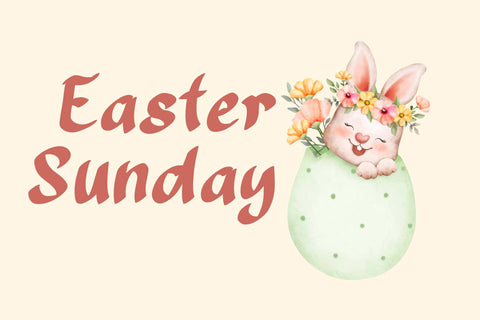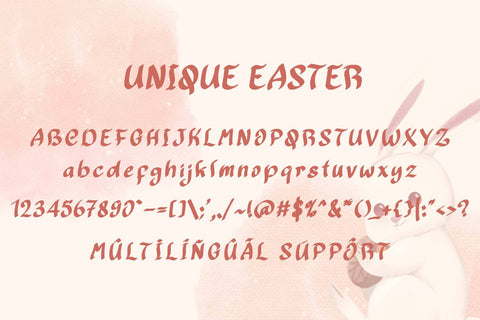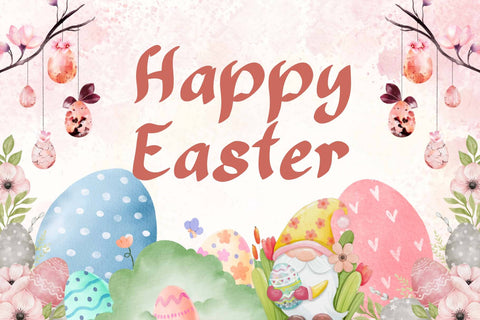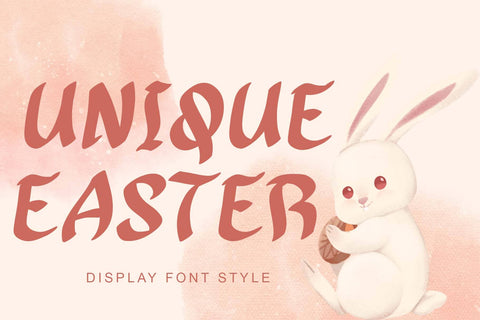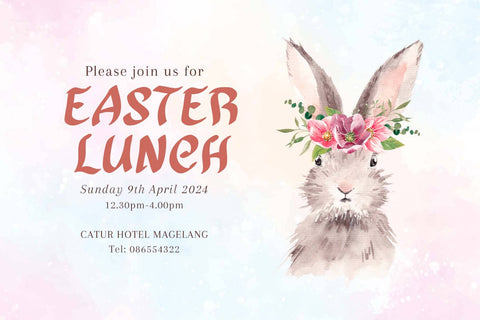
Unique Easter
"Unique Easter" is a unique and elegant display font. Equipped with uppercase letters, lowercase letters, numerals, punctuation, and multilingual support. Very suitable for posters, banners, logos, branding, stickers, SVG, KDP, Procreate, sublimation, comics, book titles, invitations, and others.